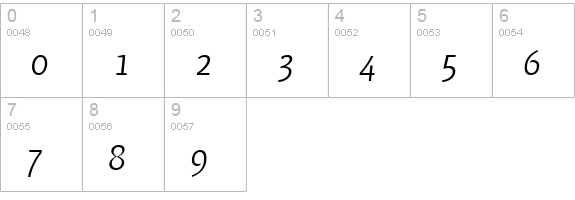
PFMuse-LightItalic Font Details
PFMuse-LightItalic is a sophisticated and elegant font that exudes a sense of modernity and style. Its light italic style adds a touch of grace and sophistication to any design project. The delicate curves and flowing lines of this font make it perfect for conveying a sense of creativity and elegance. What makes PFMuse-LightItalic even more appealing is that it is available for free download at FontsMarket.com. This means that you can easily access this stunning font and incorporate it into your projects without any cost. Whether you are working on a branding project, website design, or any other creative endeavor, PFMuse-LightItalic is sure to elevate your work and leave a lasting impression. Download it today and experience the beauty and versatility of this exquisite font.